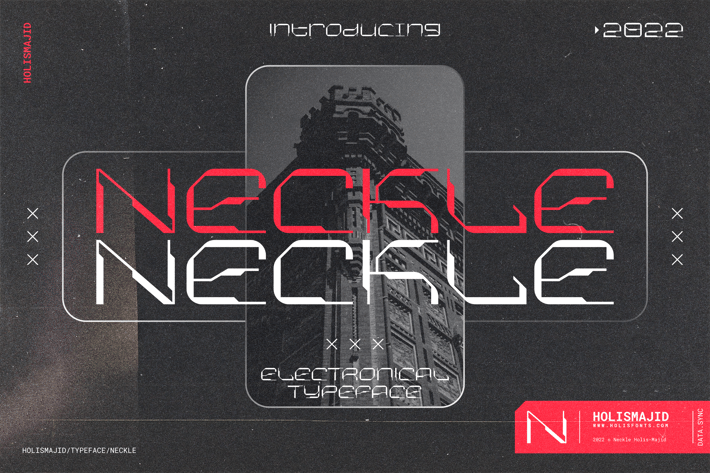
Neckle Typeface Tech
Neckle Typeface is inspired by sophisticated and modern things related to robots, machines, artificial intelligence, science fiction, etc. This font can be used for social media designs, brands, product labels, poster designs etc. This font is made with a unique character where the upper and lowercase heights are the same, but look different in shape.